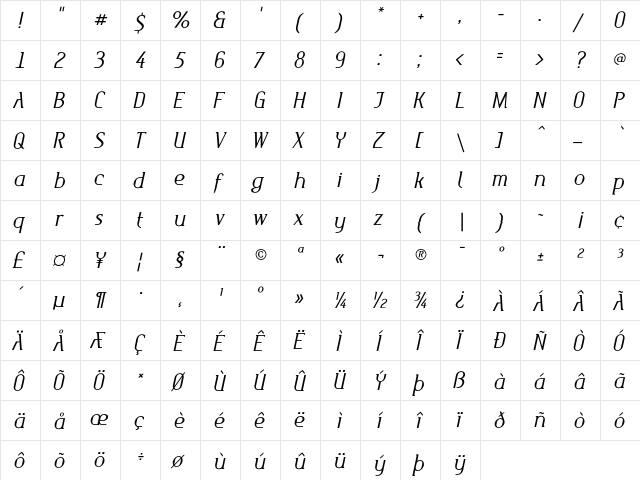
Maverick LightItalic Font Preview
Design Context for Maverick Typeface
Maverick takes a measured approach to typography — its balanced proportions and neutral character make it a reliable workhorse for both digital and print work. Its italic angle brings a sense of urgency and motion to the letterforms. The delicate stroke weight brings airiness and refinement to layouts.
Pro Tip: Try Maverick for annotation and caption copy alongside an upright companion — the contrast in angle creates a dynamic but ordered typographic system.